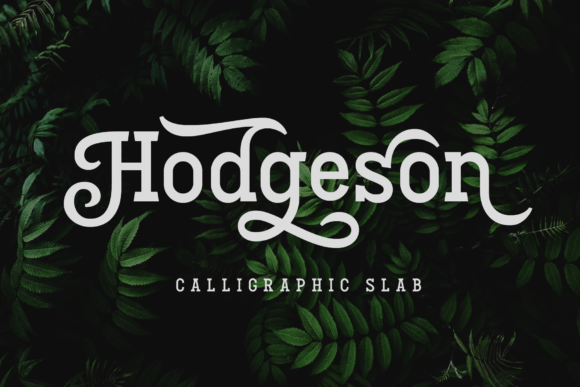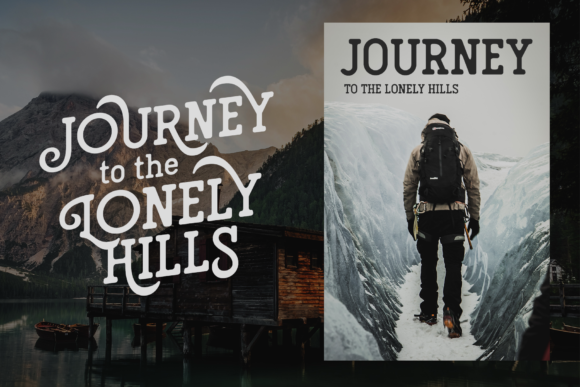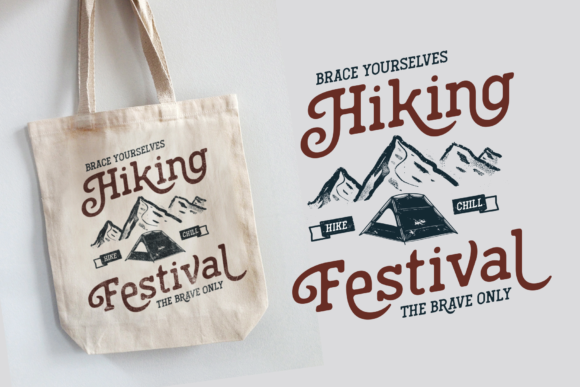
Hodgeson Font: Unique Calligraphy Slab Serif for DIY & Cricut Projects
About the Hodgeson Font
Step up your design game with Hodgeson Font, a font that exudes confidence and style. Hodgeson is a calligraphic slab serif font with unique style. Use it for any crafting project that requires a one-of-a-kind appearance!
Hodgeson’s strong calligraphic strokes make it ideal for headlines, logos, short-form text on packaging, and posters requiring a touch of vintage elegance. Its distinctive character, however, doesn’t lend itself well to body text or long paragraphs; readability suffers at smaller sizes. Avoid using it for UI elements where clear legibility is paramount.
The font’s core personality is sophisticated yet bold. It projects a sense of refined strength and heritage. This makes it perfect for brands aiming for a premium or classic feel, such as luxury goods, artisanal crafts, or heritage businesses.
For effective pairings, consider a clean sans-serif like Helvetica Neue for body text to provide a strong contrast in weight and style. Alternatively, a delicate script font could complement its elegant flourishes for a more luxurious feel, offering a secondary text layer.